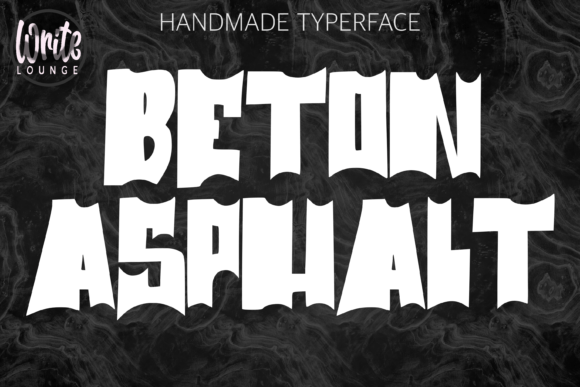
The Ultimate Display Font: Beton Asphalt
As a designer, I’ve had my fair share of frustrating moments – like when I was working on a project and just couldn’t find the right font. I recall one particularly grueling session where I was tasked with creating a bold, eye-catching poster for a local business. The client wanted something that would grab attention and convey a sense of ruggedness, but every font I tried seemed to fall flat. That was until I stumbled upon Beton Asphalt, a cool bold rough display font that completely transformed my design.
First Impressions: A Love Affair with Beton Asphalt
From the moment I laid eyes on Beton Asphalt, I knew I had found something special. This font is not just any ordinary display font – it’s a game-changer. With its bold, rough texture, it’s perfect for adding a touch of edginess to any design project. Here are just a few things I love about Beton Asphalt:
• Versatility: Beton Asphalt can elevate a wide range of crafting ideas, from t-shirts to posters, branding materials, labels, and much more.
• Ease of use: The font is incredibly easy to work with, even for those who are new to design.
• 💥 Impactful: The bold, rough texture of Beton Asphalt makes it perfect for creating eye-catching designs that demand attention.
The Honest Review: Weighing the Pros and Cons
While Beton Asphalt is an amazing font, it’s not without its quirks. Here are a few things to keep in mind:
• 🤔 Limited use cases: While Beton Asphalt is incredibly versatile, it’s not suitable for body text or small font sizes. It’s best used for headlines, titles, or short phrases.
• ⚠️ Kerning issues: As with any font, there may be some kerning issues, especially when using all caps. However, these can be easily adjusted in most design software.
Beton Asphalt comes with a range of OpenType features and glyphs that can enhance your designs. Here are a few things to explore:
• Stylistic alternates: Beton Asphalt comes with stylistic alternates that can add a touch of uniqueness to your designs.
• Glyphs: The font includes a range of glyphs that can be used to add visual interest to your designs.
The Designer Inspiration Behind Beton Asphalt
Beton Asphalt was inspired by the rugged, industrial landscapes of urban cities. The font’s creator wanted to capture the essence of concrete and asphalt, bringing a touch of grit and edginess to the world of typography.
Q: What is Beton Asphalt?
A: Beton Asphalt is a cool bold rough display font that’s perfect for adding a touch of edginess to any design project.
Q: What can I use Beton Asphalt for?
A: Beton Asphalt can be used for a wide range of design projects, including t-shirts, posters, branding materials, labels, and much more.
Q: Is Beton Asphalt easy to use?
A: Yes, Beton Asphalt is incredibly easy to use, even for those who are new to design.